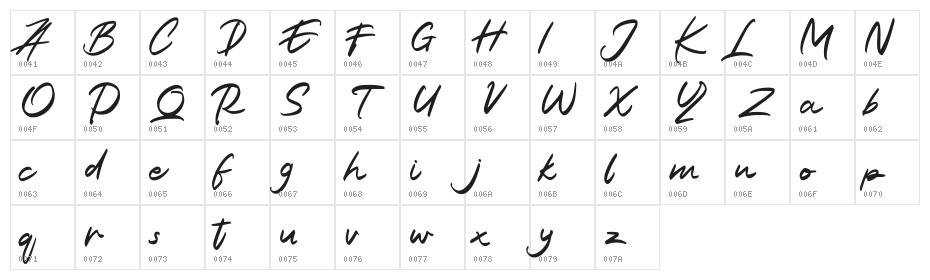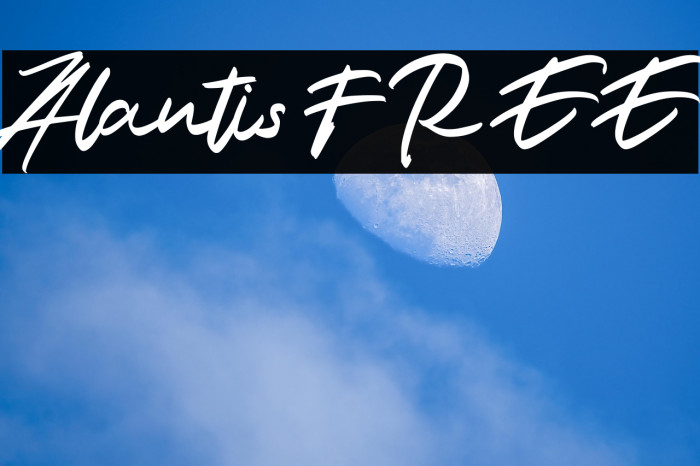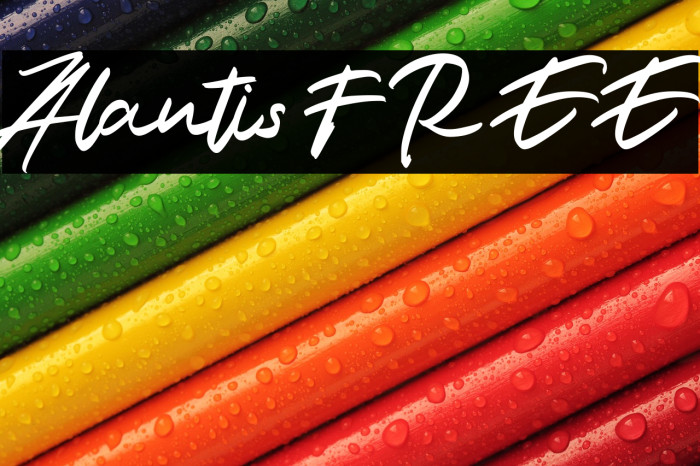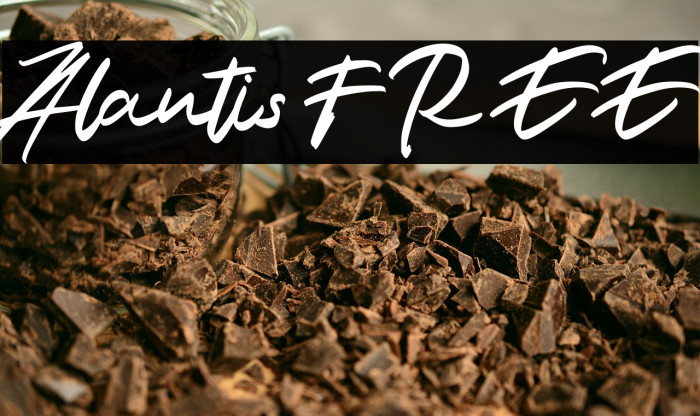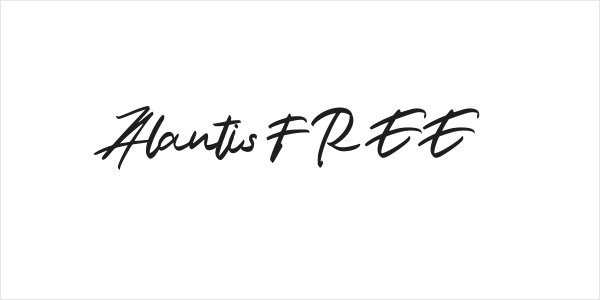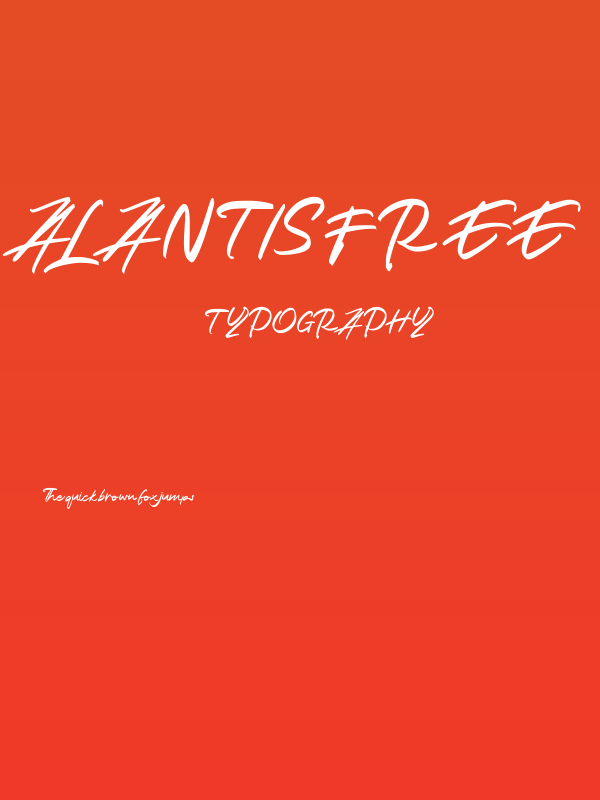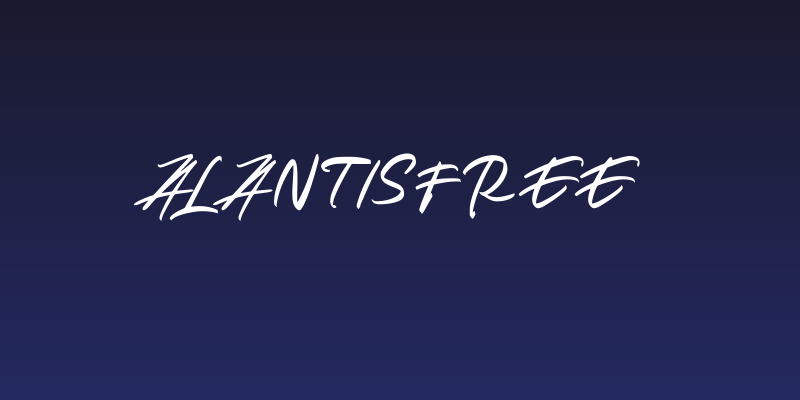
Alantis FREE Font
Alantis FREE Description
This font features a dynamic and fluid script style, characterized by its elegant, flowing strokes and a sense of motion. The uppercase letters are bold and slightly slanted, giving a sense of urgency and energy. The lowercase letters maintain a consistent style with smooth curves and connected strokes, enhancing readability while retaining a handwritten feel. The numbers and special characters follow the same aesthetic, ensuring uniformity across all text elements. This font is ideal for projects that require a personal touch or a sense of sophistication.
| Use Case | Logos, Headlines, Invitations |
| Proposed Projects | Ideal for wedding invitations, branding, logos, and social media graphics. |